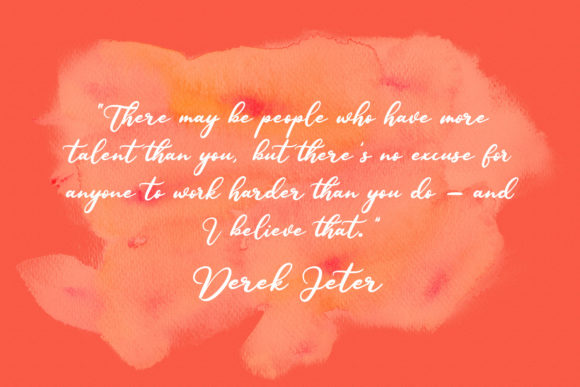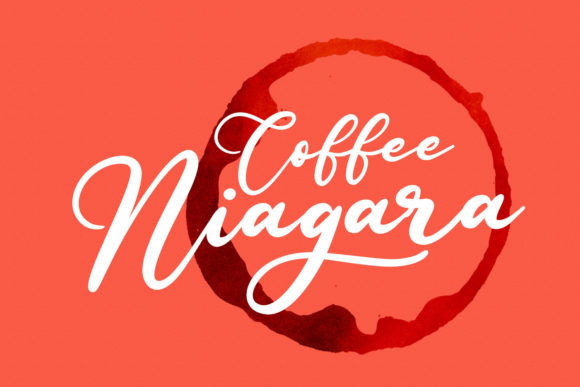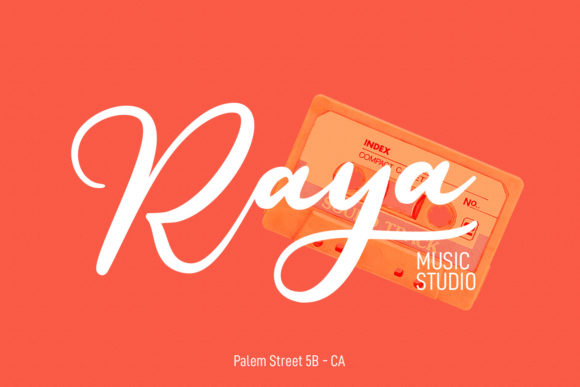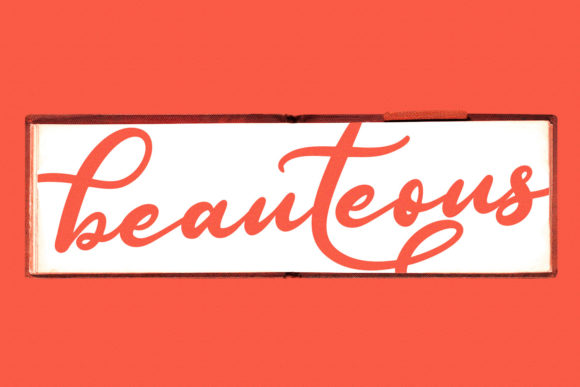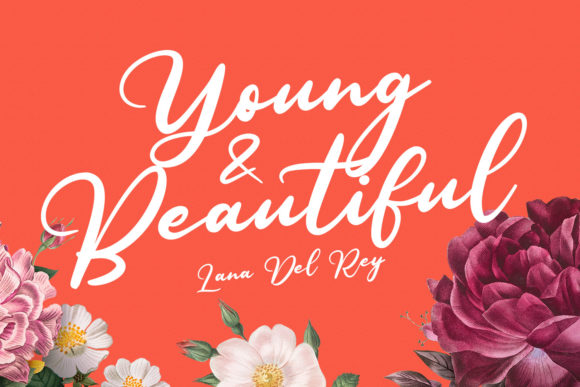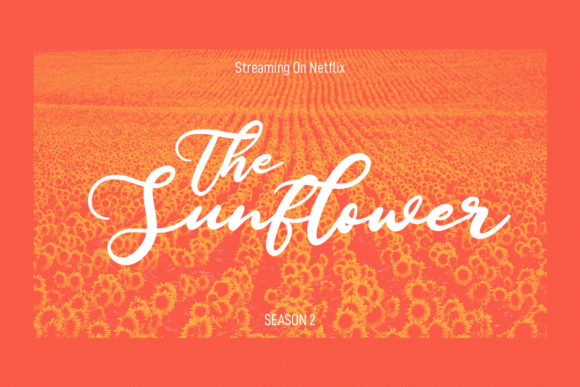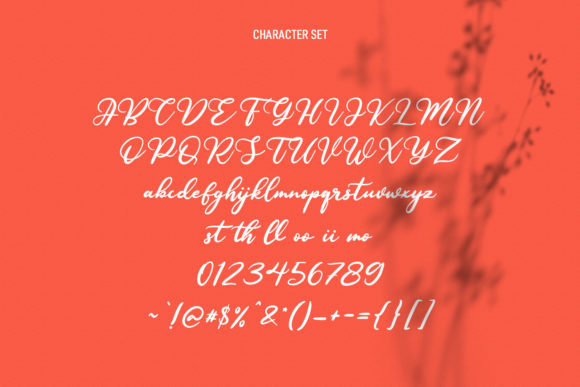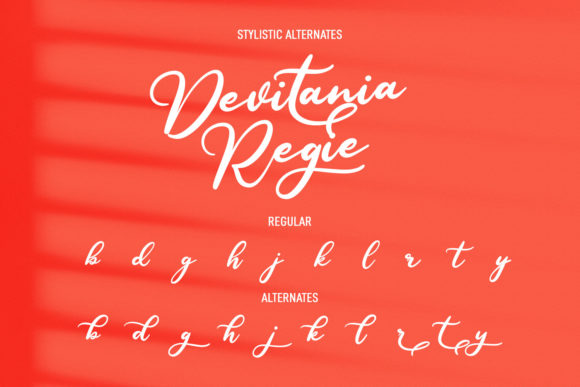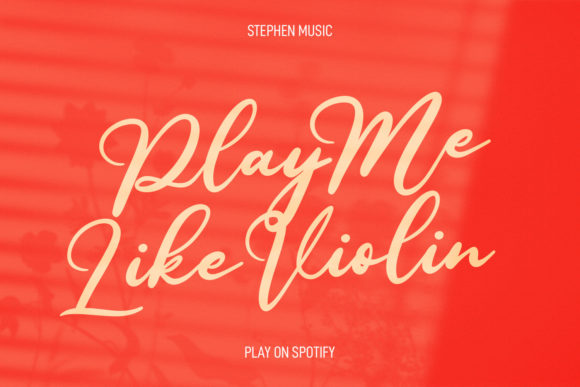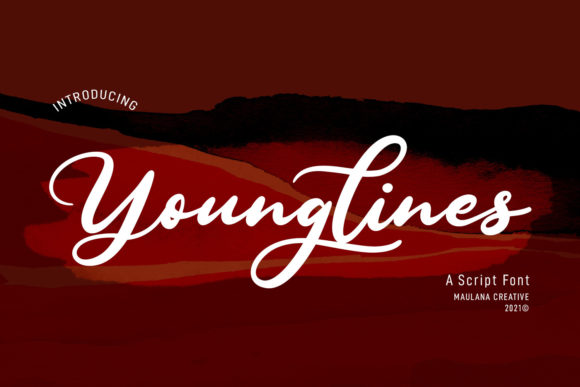
Younglines Script Font
About Younglines Script Font
Younglines Script is a beautiful and refined script font. It has a classy, elegant and modern look that can be used for logos, branding, invitations, stationery, wedding designs, social media posts, and much more!